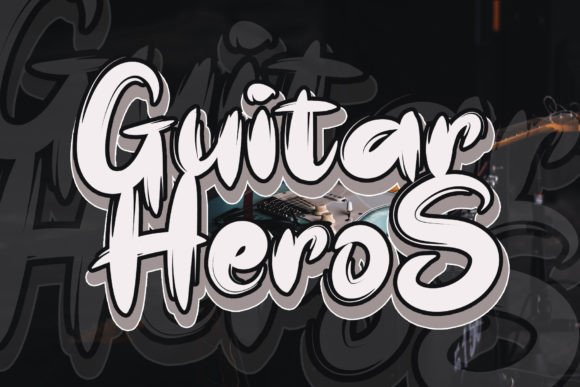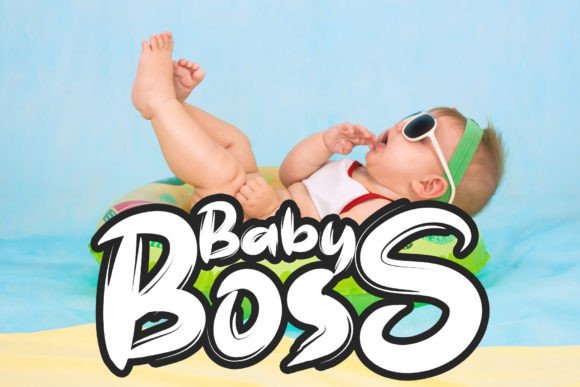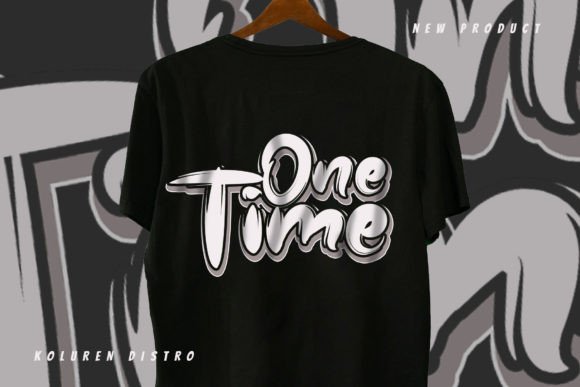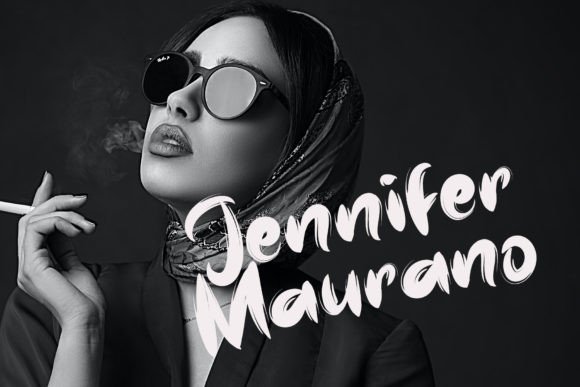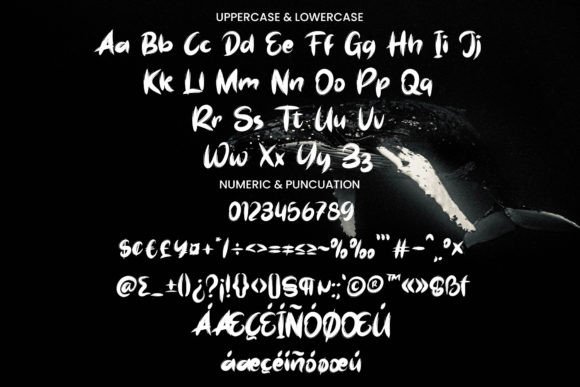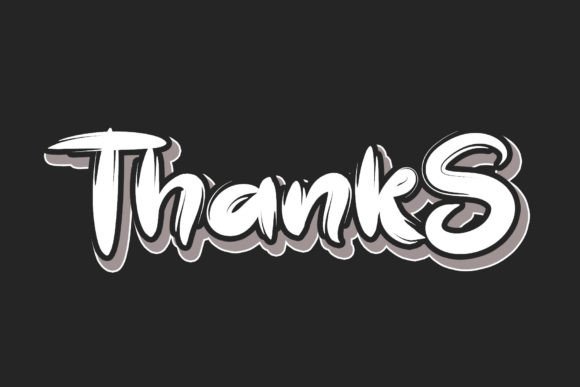
Hello Brush Font: A Beautiful Handwritten Script for Your Creative Projects
Are you looking for a font that can add a personal touch to your designs? Do you want to create beautiful and eye-catching greeting cards, invitations, and motivational quotes? Look no further than the Hello Brush Font! This stunning handwritten brush script font is perfect for crafters, designers, and anyone who wants to add a touch of personality to their work.
What is Hello Brush Font?
Hello Brush is a carefully crafted handwritten brush script font that looks and feels like it was written on a marker board. The font’s unique texture and brush-like strokes give it a warm and inviting feel that’s perfect for a wide range of creative projects. Whether you’re designing a greeting card, invitation, or social media post, Hello Brush Font is sure to make your message stand out.
Key Features of Hello Brush Font
- Handwritten brush script font: Hello Brush Font is a unique and beautiful handwritten font that’s perfect for adding a personal touch to your designs.
- Marker board texture: The font’s texture and brush-like strokes give it a warm and inviting feel that’s reminiscent of a marker board.
- Perfect for greeting cards and invitations: Hello Brush Font is ideal for designing beautiful and eye-catching greeting cards, invitations, and other paper crafts.
- Great for motivational quotes: The font’s bold and expressive style makes it perfect for creating motivational quotes and inspiring messages.
Why Use Hello Brush Font?
There are many reasons why you should consider using Hello Brush Font in your creative projects. Here are just a few:
- Add a personal touch: Hello Brush Font is a unique and beautiful font that can add a personal touch to your designs.
- Stand out from the crowd: The font’s bold and expressive style makes it perfect for creating eye-catching designs that stand out from the crowd.
- Perfect for crafters and designers: Hello Brush Font is ideal for crafters, designers, and anyone who wants to add a touch of personality to their work.
- Easily readable: The font is easy to read, making it perfect for creating designs that need to be understood quickly and easily.
How to Use Hello Brush Font
- Use it for headings and titles: The font’s bold and expressive style makes it perfect for use as headings and titles.
Hello Brush Font is a beautiful and unique handwritten brush script font that’s perfect for adding a personal touch to your designs. With its marker board texture and bold and expressive style, it’s ideal for creating eye-catching greeting cards, invitations, motivational quotes, and more. Whether you’re a crafter, designer, or just someone who loves to create, Hello Brush Font is a great addition to your font collection.